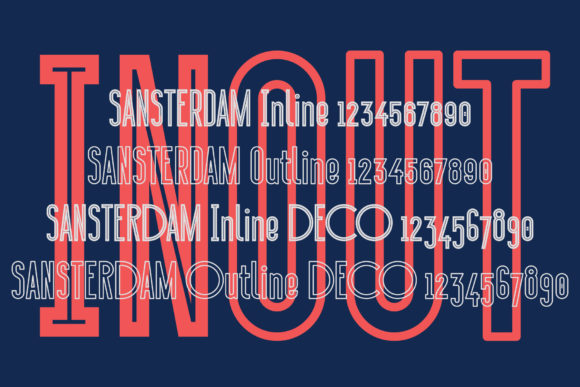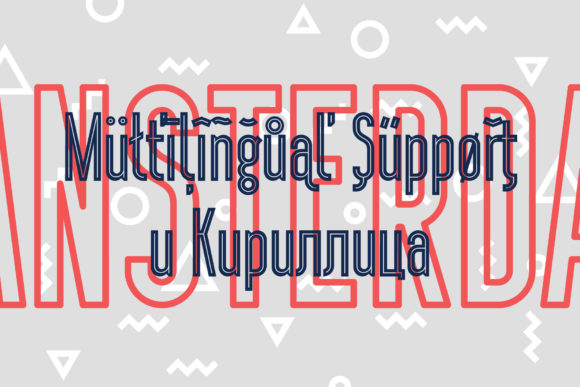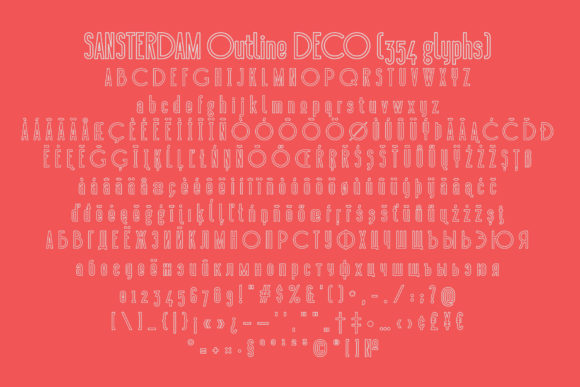
Introduction to Sansterdam Family Font
Have you ever been working on a creative project, pouring your heart and soul into it, only to be stuck on the perfect font to match your vision? We’ve all been there. The struggle is real, but the solution is here – the Sansterdam Family Font.
This modern geometric condensed grotesque family font is a game-changer for designers looking to add a vintage feel to their designs. With its versatility and high-quality design, it’s the perfect addition to any design project. Whether you’re creating a title, poster, logo, or anything in between, the Sansterdam Family Font is sure to deliver.
Key Features of Sansterdam Family Font
- High-quality design resource ideal for creative projects requiring a unique touch.
- Includes multiple font styles and weights, providing versatility for a range of design applications.
- Sansterdam Family Font is a unique and creative design resource that is perfect for adding a touch of personality to your design projects.
Honest Review: Sansterdam Family Font
I recently stumbled upon the Sansterdam Family Font and was excited to give it a try. As a designer, I’m always on the lookout for high-quality design resources to enhance my creative projects.
The font itself is quite charming, with a unique and eclectic style that’s perfect for adding some personality to your designs. I particularly love the bold and playful feel of the font, which makes it great for titles and headings.
Here are some of the things that work well:
- ✨ Unique and eclectic style that adds personality to designs
- ✨ Perfect for titles and headings due to its bold and playful feel
- ⚠️ Limited font styles available (although the ones that are available are quite versatile)
- ⚠️ May not be suitable for formal or professional designs due to its playful feel
Overall, I’d say that the Sansterdam Family Font is a great addition to any designer’s toolkit. While it may have some limitations, its unique style and high-quality design make it a valuable resource for creative projects.
Tips for Getting the Most Out of Sansterdam Family Font
For the best results, use the Sansterdam Family Font in conjunction with other high-quality design elements, such as images and graphics. Experiment with different font sizes, colors, and styles to find the perfect look for your project.
The Sansterdam Family Font is perfect for a wide range of creative projects, including logos, business cards, brochures, and social media graphics. Its versatility and high quality make it a great choice for any design need.